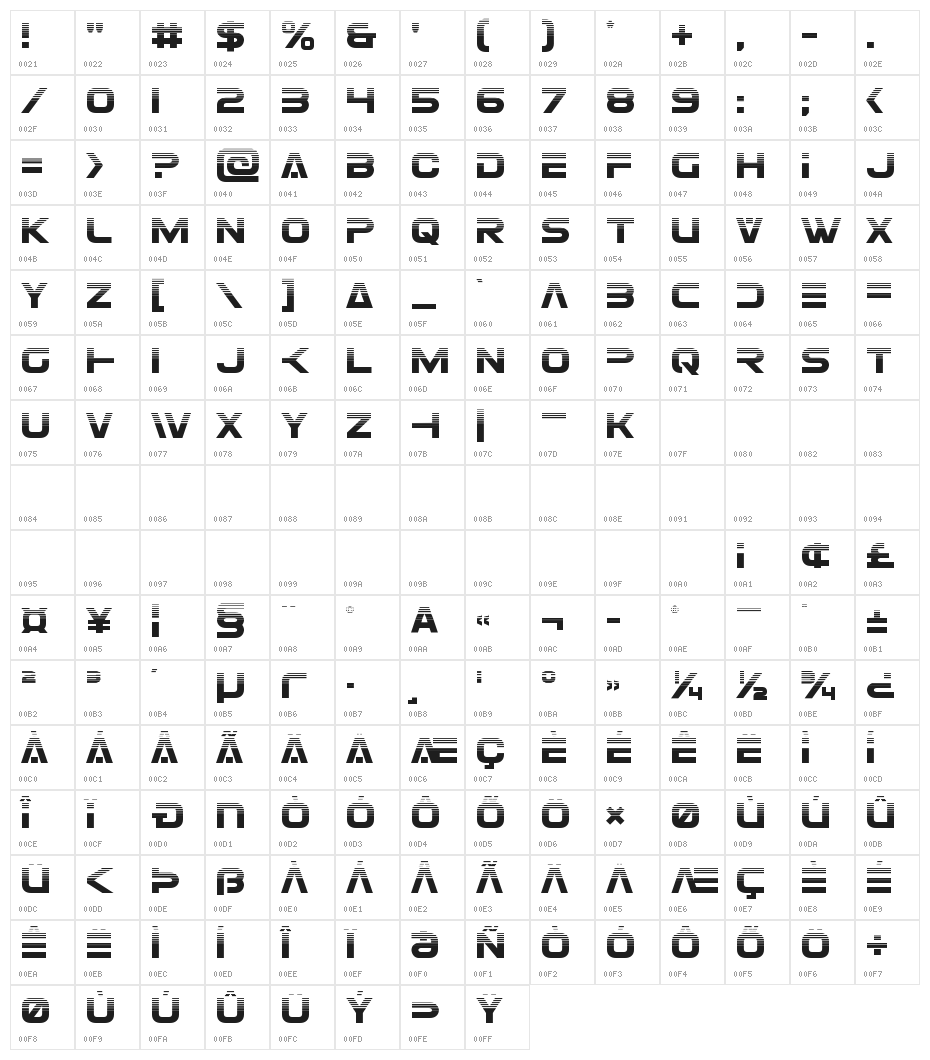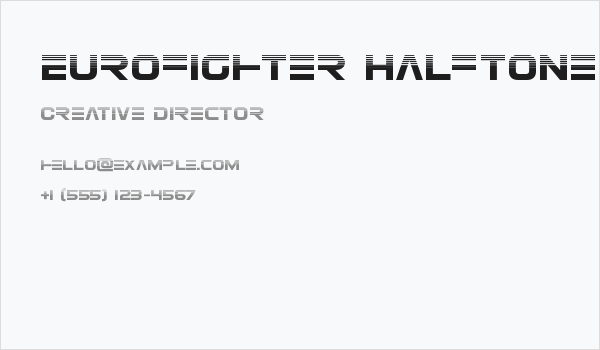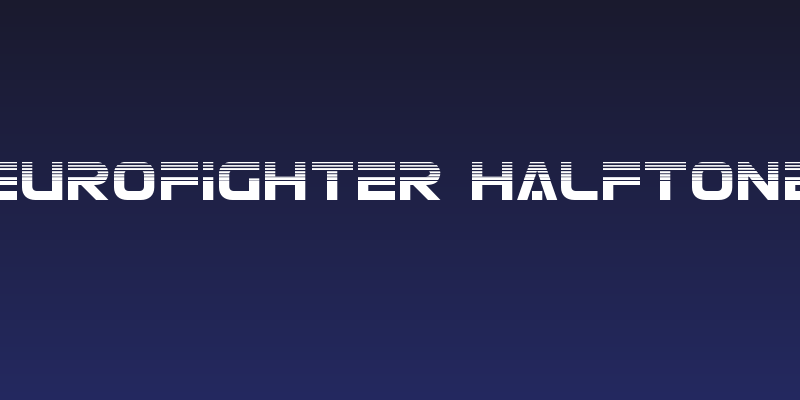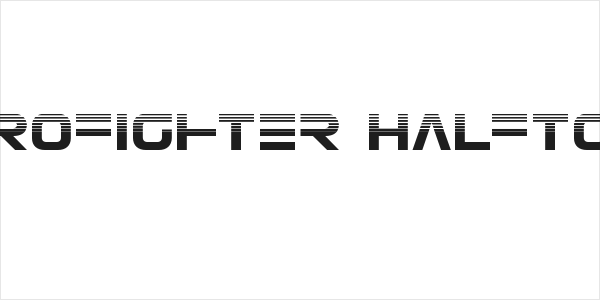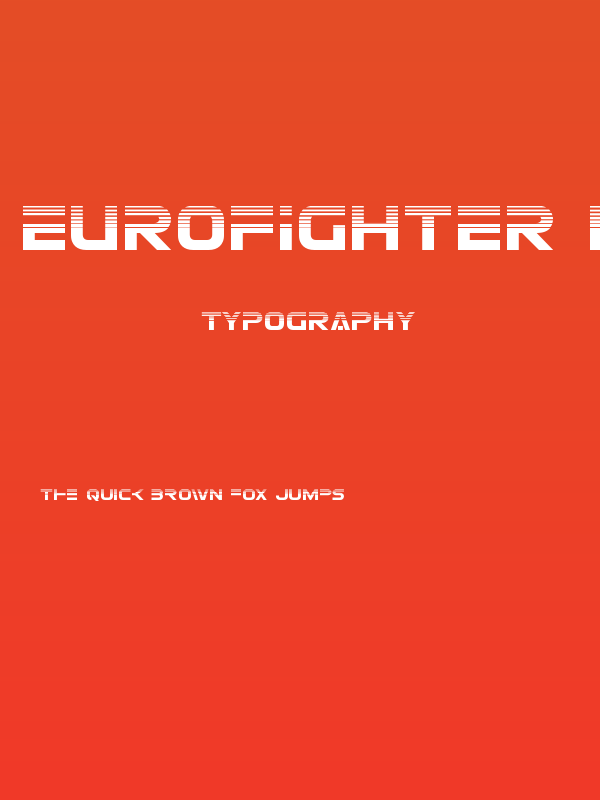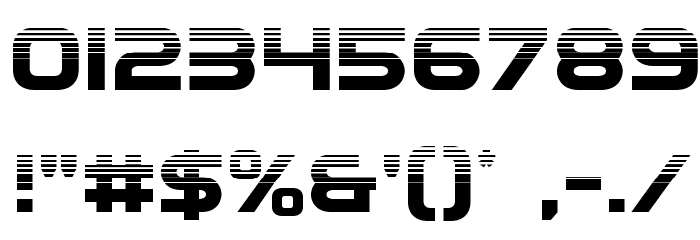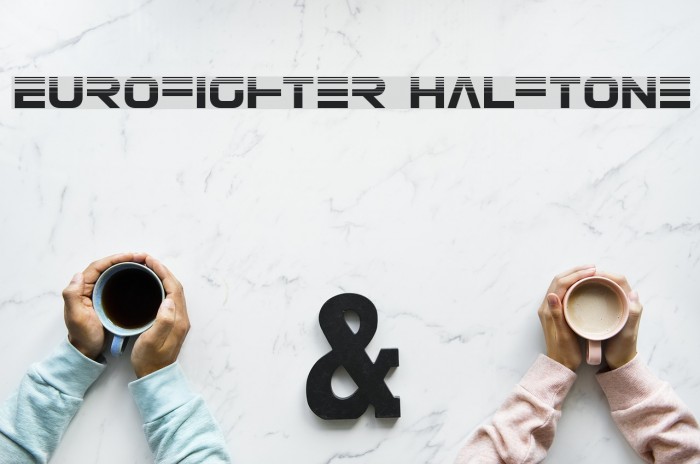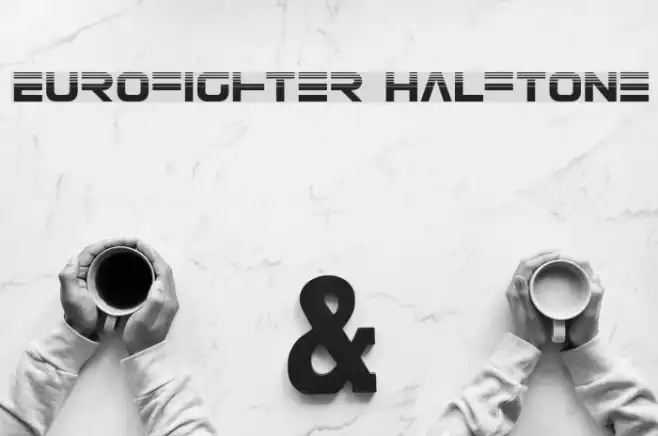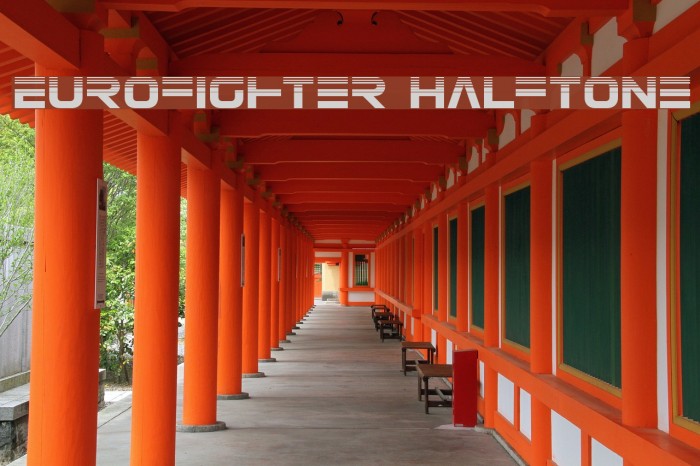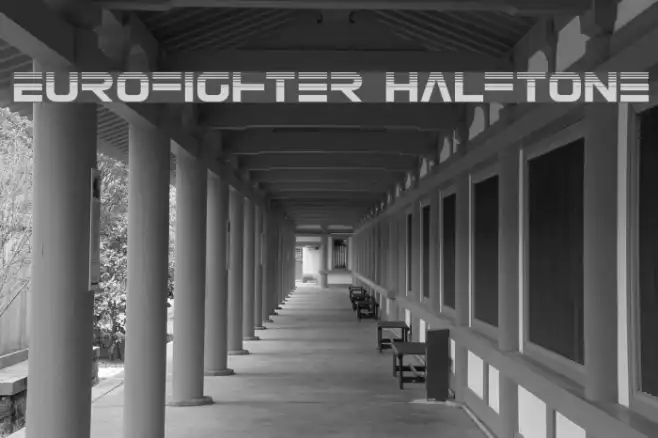
Eurofighter Halftone Font
Eurofighter Halftone Description
This font features a bold, futuristic design with a halftone effect that gives it a dynamic and modern appearance. The characters are constructed with a series of horizontal lines that create a sense of movement and energy. The uppercase letters are particularly striking, with sharp angles and a geometric structure that enhances the overall aesthetic. The numerals and special characters maintain this theme, ensuring consistency across all glyphs. This font is ideal for projects that require a bold statement, such as posters, logos, and headlines. Its unique style makes it stand out, capturing attention with its innovative design.
| Proposed Projects | Ideal for posters, logos, and headlines that require a bold, modern look. |